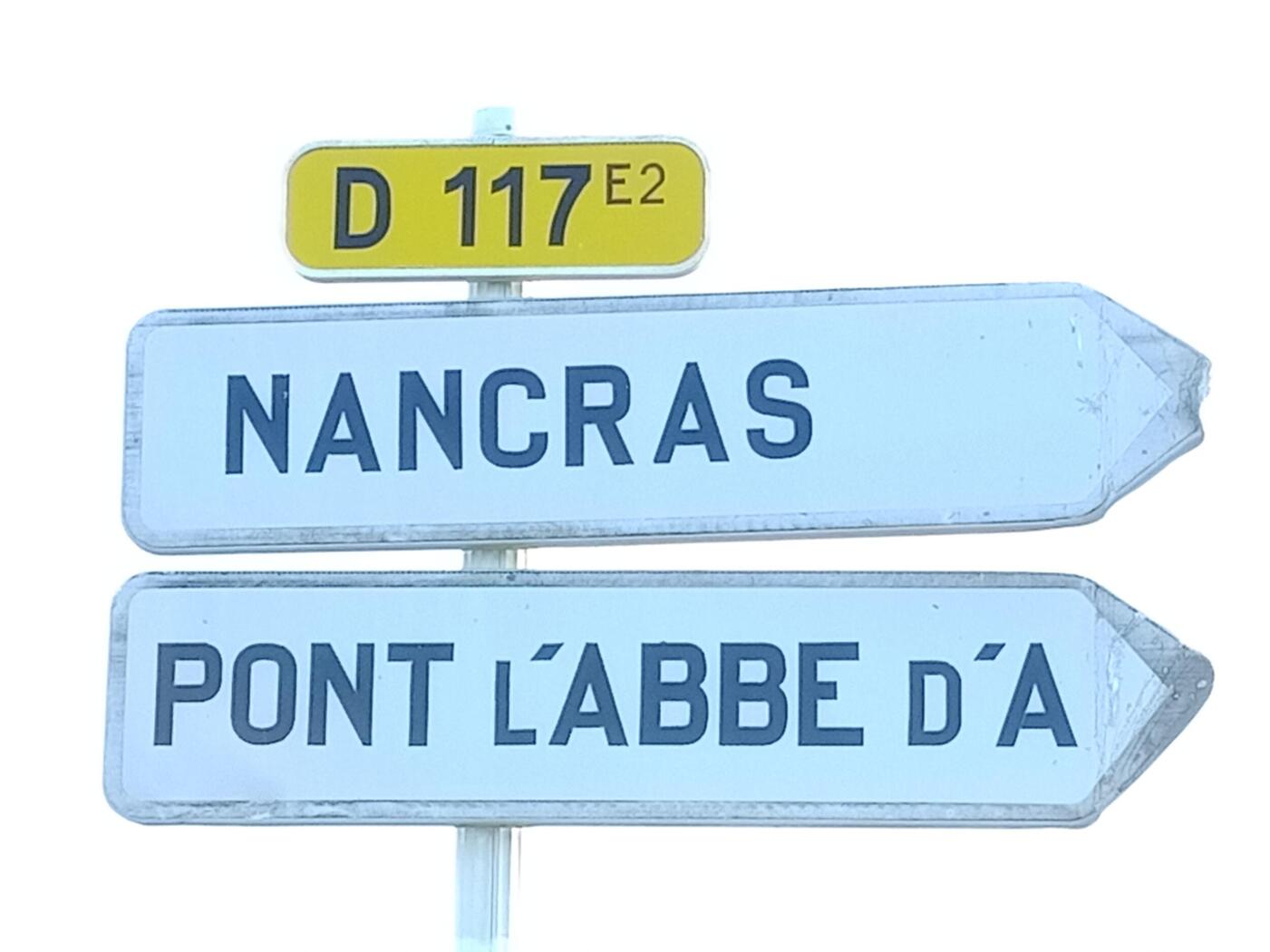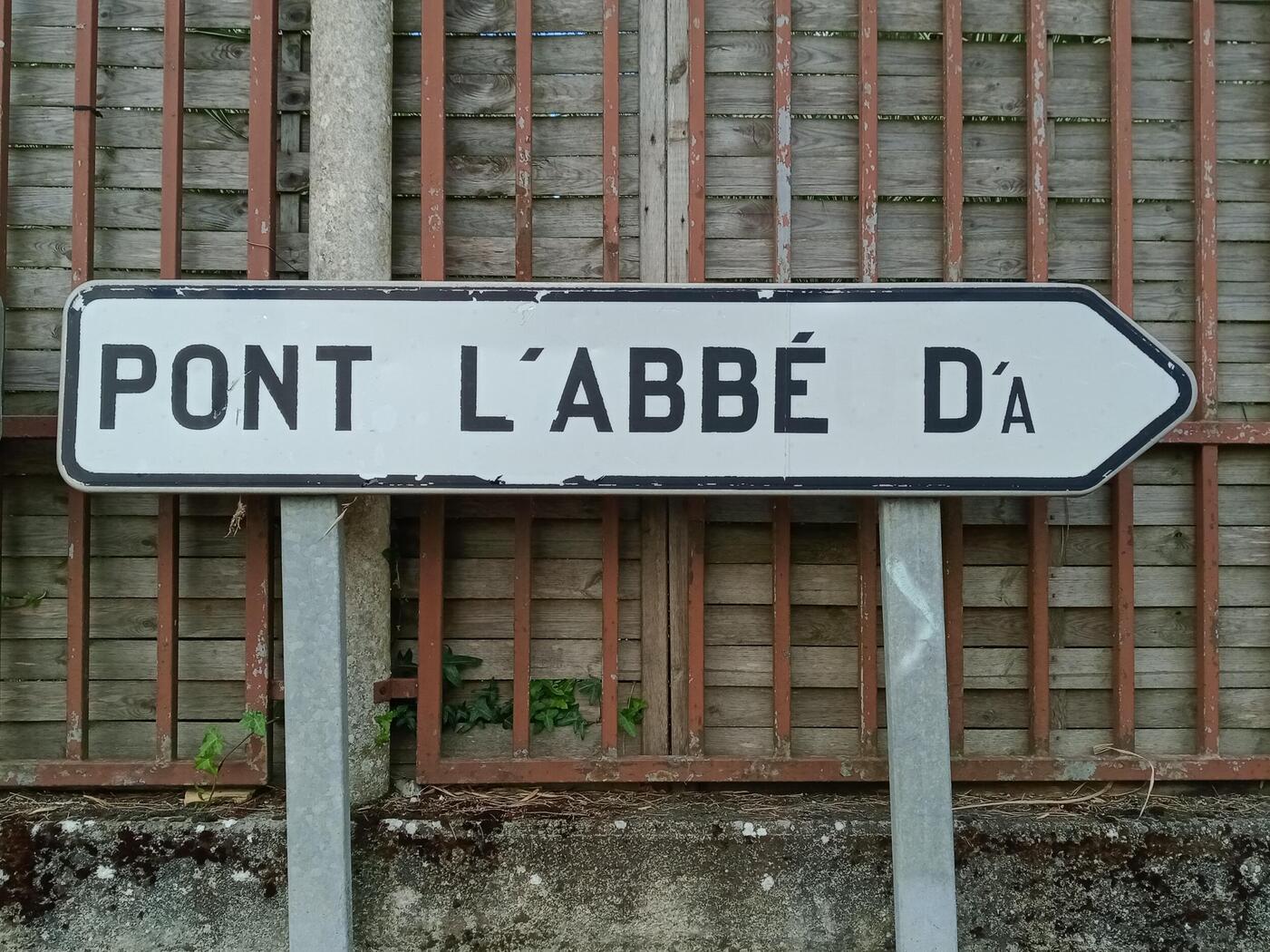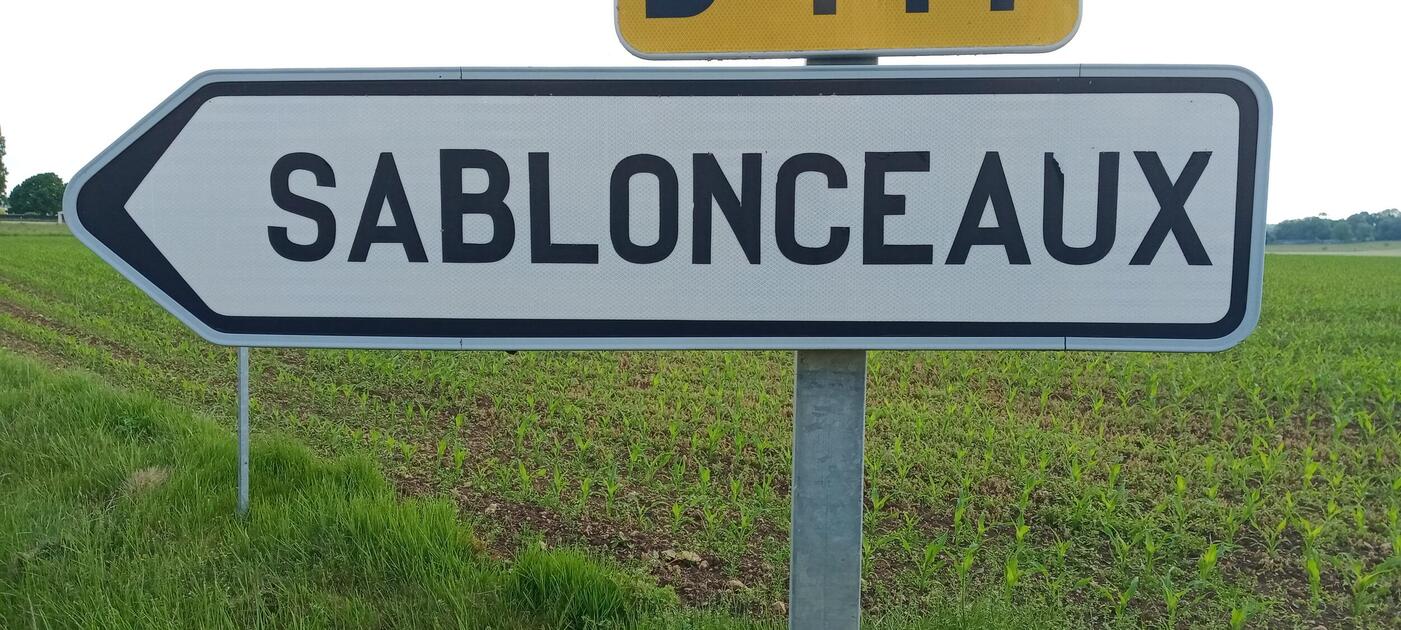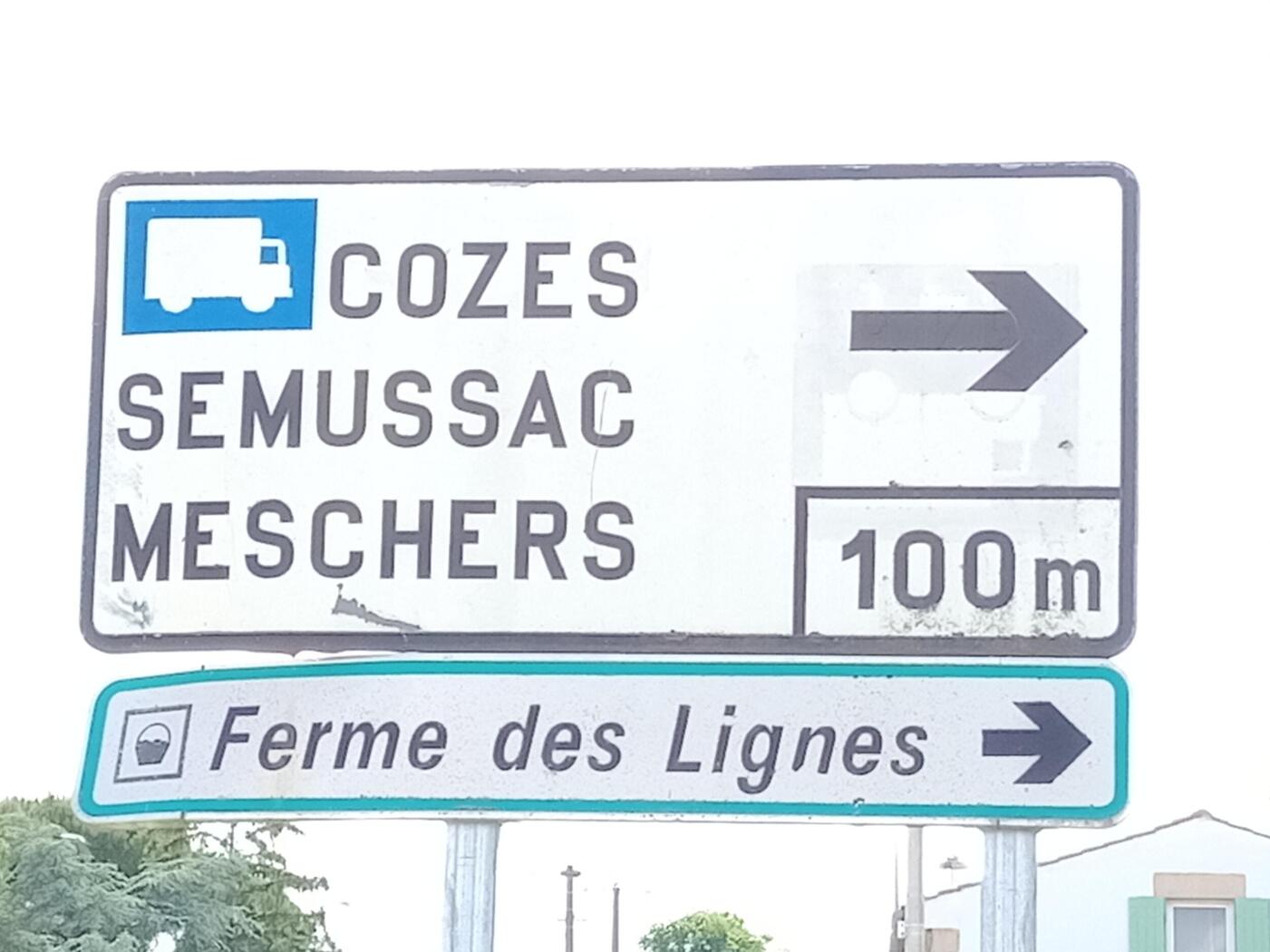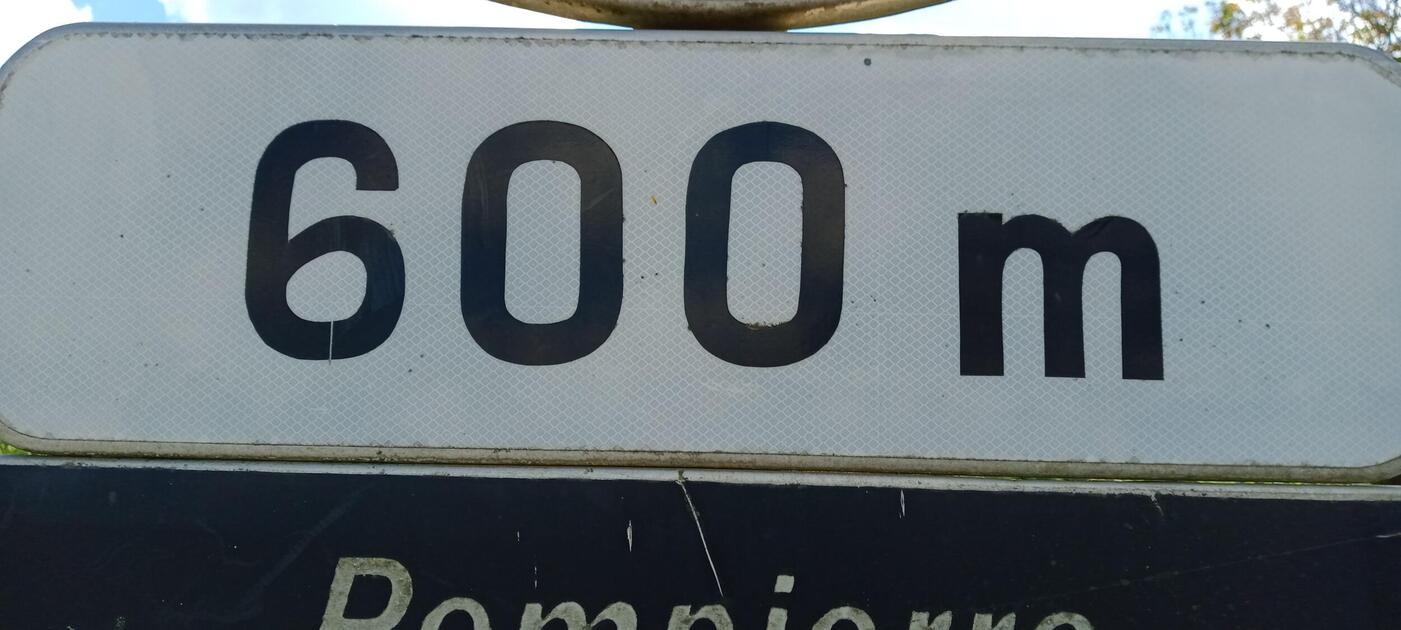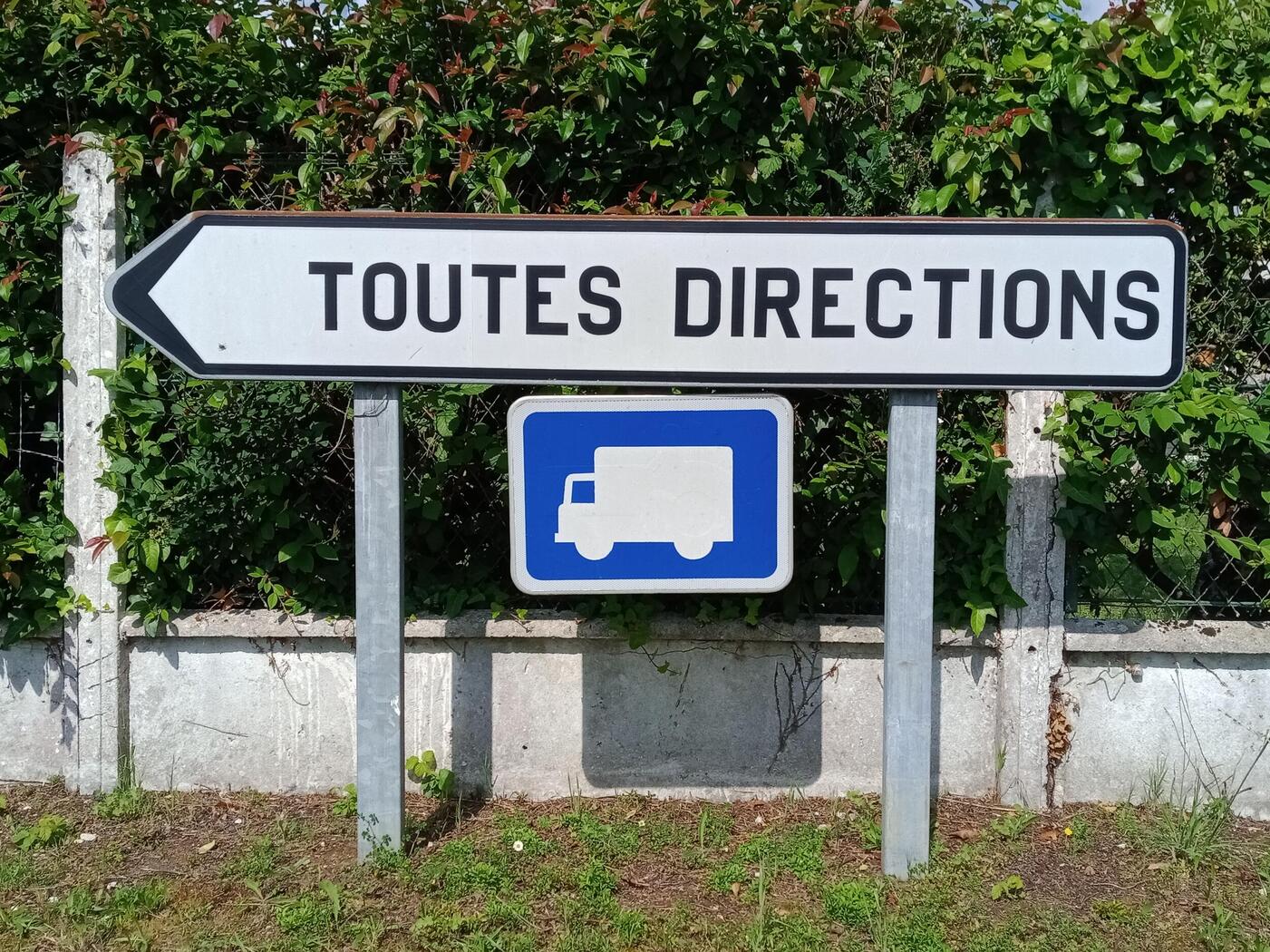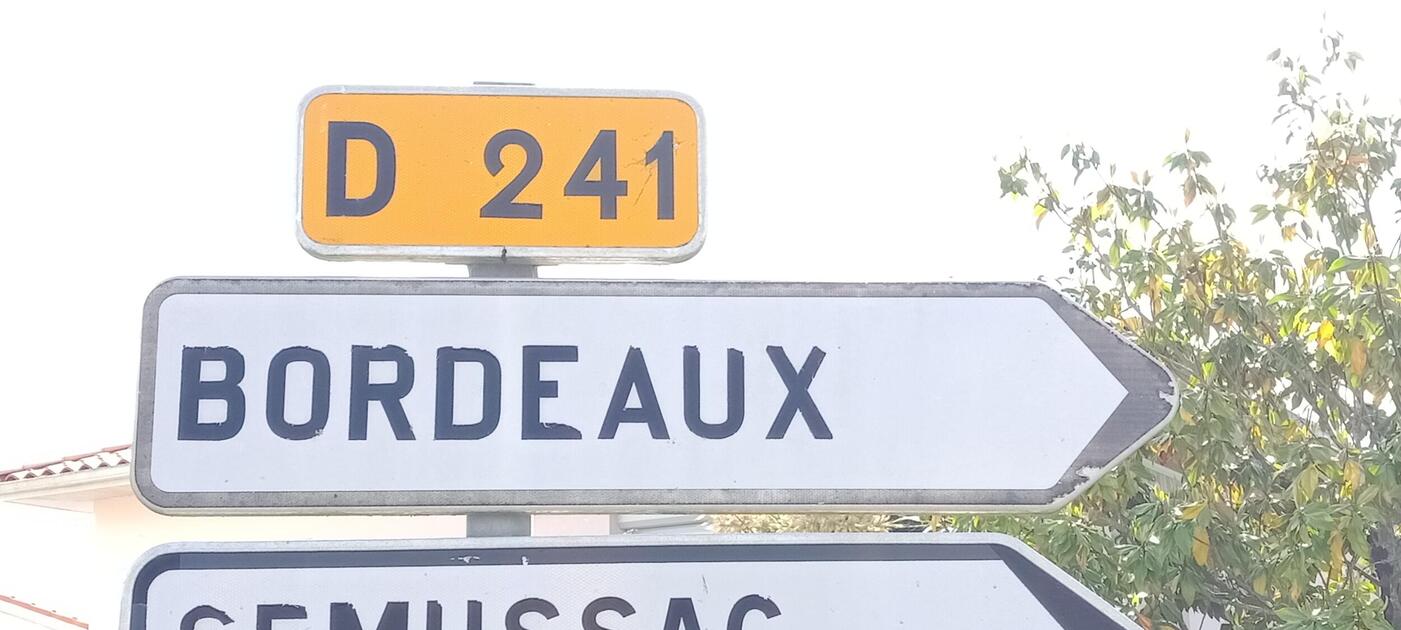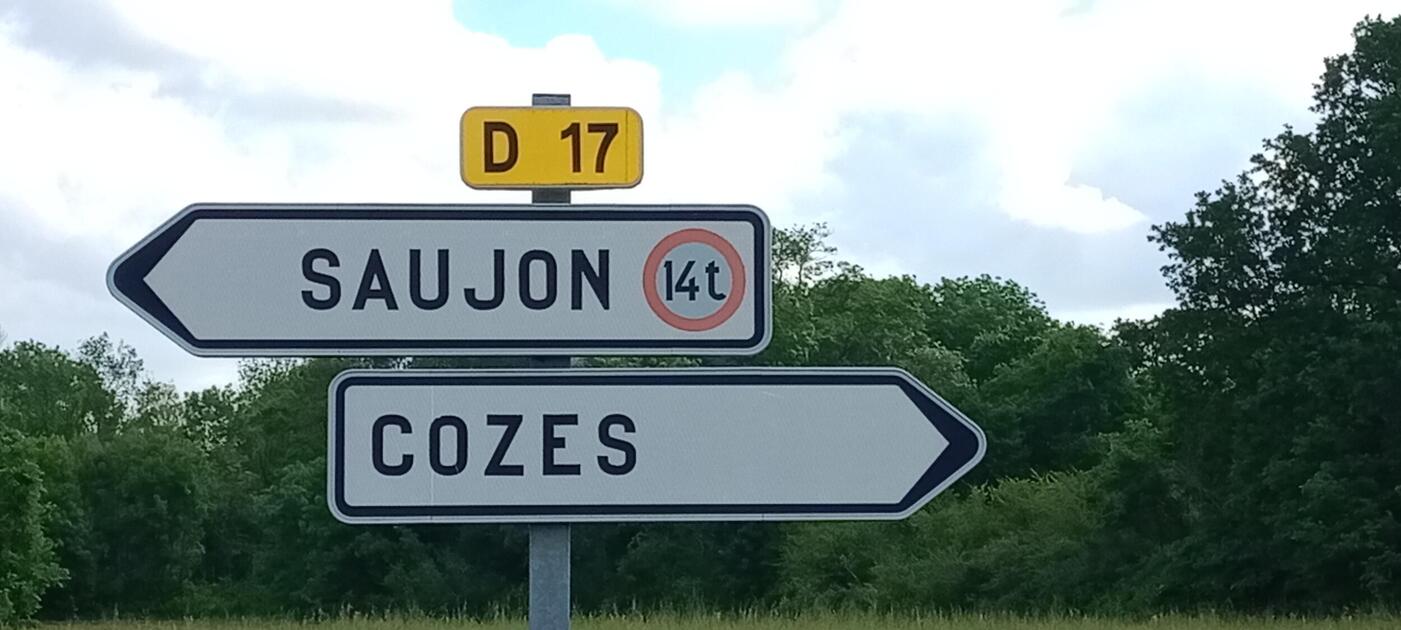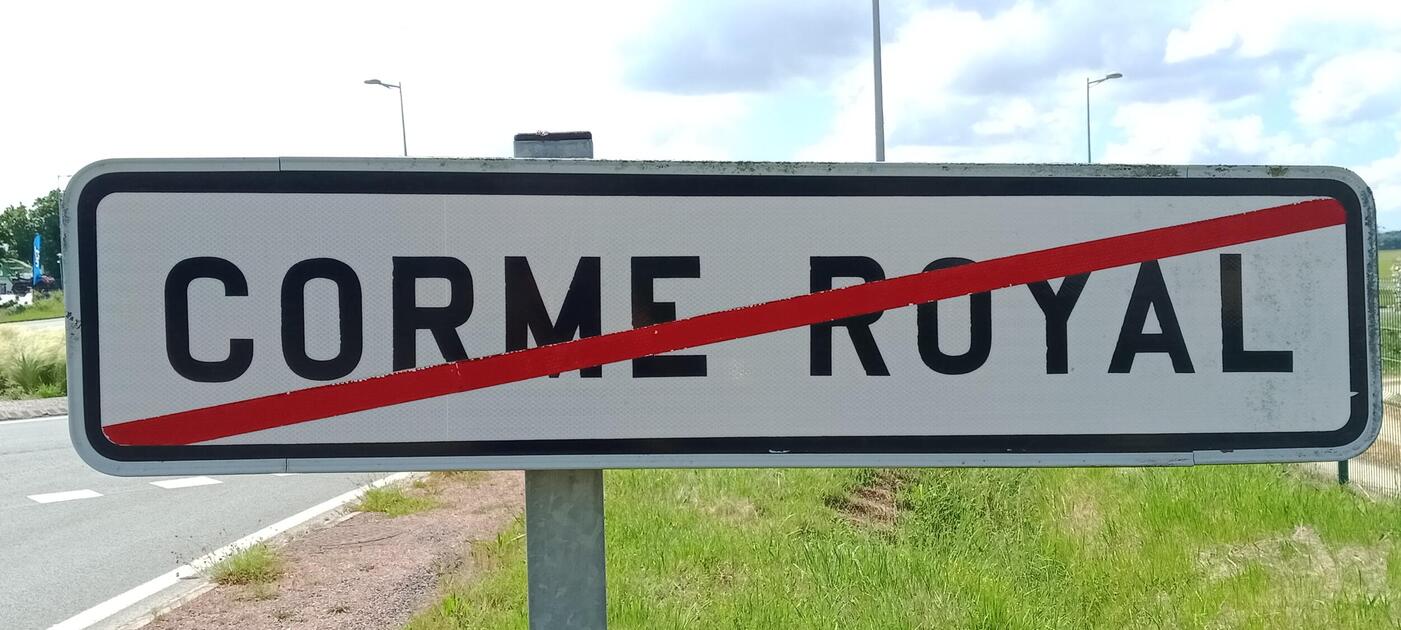
Non-regulatory typeface on directional road signs around Saujon, France
For years now, I have noticed something quite odd about a bunch of road signs, in an area that I visit from time to time. And it piqued my curiosity!
Normally, directional road signs in France mostly use typefaces called “L1”, “L2”, and “L4”. The “L1” typeface can be considered as the “standard” one, as it is used for most town names on white backgrounds (signs with a green or blue background use “L2”, which is a thinner variant of “L1”).
However, on some of the road signs I have met, the typeface isn’t quite the same (see photos)… A bit boxier, a bit pointier, and all found in the same area: in or around the little town of Saujon, France. Surely this geographical repartition cannot be a coincidence.
I felt the need to find the name of that intriguing typeface. Searches using automated tools, such as WhatTheFont and Matcherator, returned no satisfying result. Identifont wasn’t helpful either.
So I started to examine the road signs. The labels, on the back of the signs, informed me that they were manufactured between 1981 and 1998, save for one made in 2009.
Many of them were supplied by sign manufacturer Neuhaus (renamed Signature in 1991), as mentioned by the labels. I have sent an e-mail to Signature with my inquiry but, alas, it remains unanswered as of now.
I also asked a worker at the local Direction des Infrastructures in Saujon, which is in charge of installing road signs on départementales roads where I noticed the unusual typeface. He said that the Direction des Infrastructures does not control which typefaces are featured on the road signs; only the manufacturers do, following the official regulations.
I found that quite odd, because a few of the signs were supplied by an other manufacturer, Laporte (which is now defunct). One well-known sign manufacturer could have used the wrong typeface. But two? That seems unlikely to me. Hypothesis: could the local Direction des Infrastructures have applied non-regulatory lettering on blank signs at the time?
And, most importantly: What is its name of this non-regulatory typeface, and where may I find it?
So this is the question of personal curiosity that brings me here, on this forum, today! I have attached several pictures of road signs featuring the odd typeface (I apologize for the poor quality of some of the photos). The typeface is usually featured on the white-background signs itself, not on the yellow-background route indicators; however, the “D 241” route indicator, on top of the “Bordeaux” sign, seems to use it as well.
TLDR
Looking for a non-regulatory typeface featured on road signs (mostly manufactured in the 80’s and 90’s) around the town of Saujon, no answer from the manufacturers and the local road maintenance service: what its name is, and where to find it.
I doubt it is a publicly available font with a trade name. It has all the hallmarks of a pre-digital, constructed design without any considerations of optical compensations a designer of print fonts would apply. I understand you have tried this already, but finding more information through the companies making the signs is still the best (if not only) approach to identify the typeface.